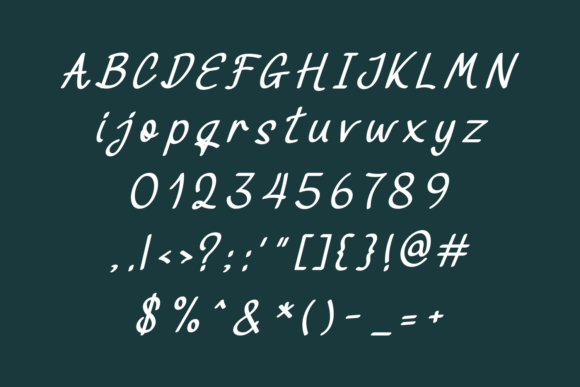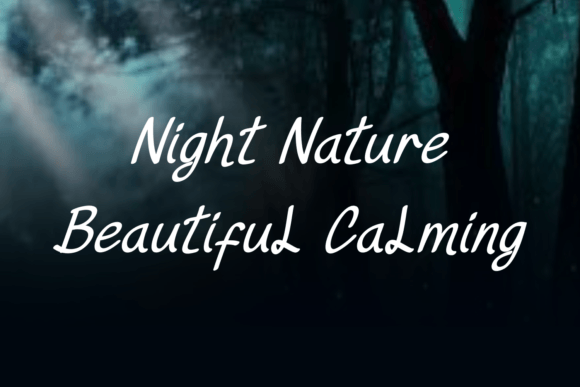
Introducing Amerun Font: Elevate Your Designs with Elegance
Are you on the hunt for a font that adds a touch of sophistication and delicacy to your designs? Look no further than Amerun Font. This stylish and delicate handwritten font is making waves in the design community, and for good reason. With its clean, thin, and smooth vibe, Amerun is the perfect addition to any project that requires a dash of elegance.
What Makes Amerun Font Stand Out?
Amerun Font boasts a unique blend of style and simplicity. Its handwritten nature gives it a personal and approachable feel, while its clean and thin lines ensure that it remains crisp and easy to read. This font is versatile and can be used in a variety of design applications, from branding and packaging to stationery and digital media.
Key Features of Amerun Font
- Stylish and Delicate: Amerun’s elegant strokes and fine lines make it perfect for designs that require a touch of sophistication.
- Clean and Thin: The font’s sleek design ensures that it remains legible even at smaller sizes, making it ideal for body text and captions.
- Smooth Vibe: Amerun’s smooth lines and curves give it a fluid and natural look that’s sure to captivate your audience.
- Versatile: Whether you’re working on a logo, brochure, or social media graphic, Amerun can adapt to any design style.
Why Designers and Crafters Love Amerun Font
Designers and crafters are always on the lookout for fonts that can help their creations stand out. Amerun Font has quickly become a favorite among creative professionals for several reasons:
- Ease of Use: Amerun is incredibly easy to use, even for those who are new to design. Its clean lines and simple structure make it a breeze to work with.
- High Readability: The font’s clear and legible design ensures that your message is communicated effectively, whether it’s on a website, print material, or digital graphic.
- Customization: Amerun can be easily customized to fit your brand’s unique style. Experiment with different colors, sizes, and textures to create a look that’s all your own.
Using Amerun Font in Your Designs
Amerun Font is incredibly versatile and can be used in a wide range of design applications. Here are a few ideas to get you started:
- Branding: Use Amerun as a logo font or for typography in your brand guidelines to add a touch of elegance.
- Stationery: Elevate your stationery designs with Amerun’s delicate and stylish strokes.
- Digital Media: Amerun is perfect for social media graphics, blog posts, and website headers.
- Packaging: Add a touch of sophistication to your product packaging with Amerun’s clean and smooth design.
Amerun Font is a game-changer for designers and crafters looking to add a touch of elegance to their creations. Its stylish and delicate handwritten design, combined with its clean, thin, and smooth vibe, make it the perfect addition to any project. Whether you’re working on a branding campaign, stationery set, or digital graphic, Amerun is sure to impress. So why wait? Give Amerun Font a try today and take your designs to the next level!